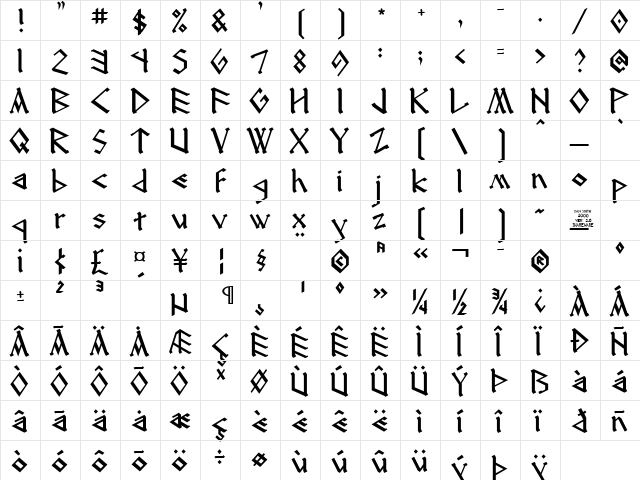
DS_RUNEnglish-2 Regular
Design Context for DS_RUNEnglish-2 Typeface
DS_RUNEnglish-2 is a composed and adaptable typeface that performs quietly and consistently across a wide range of design contexts.